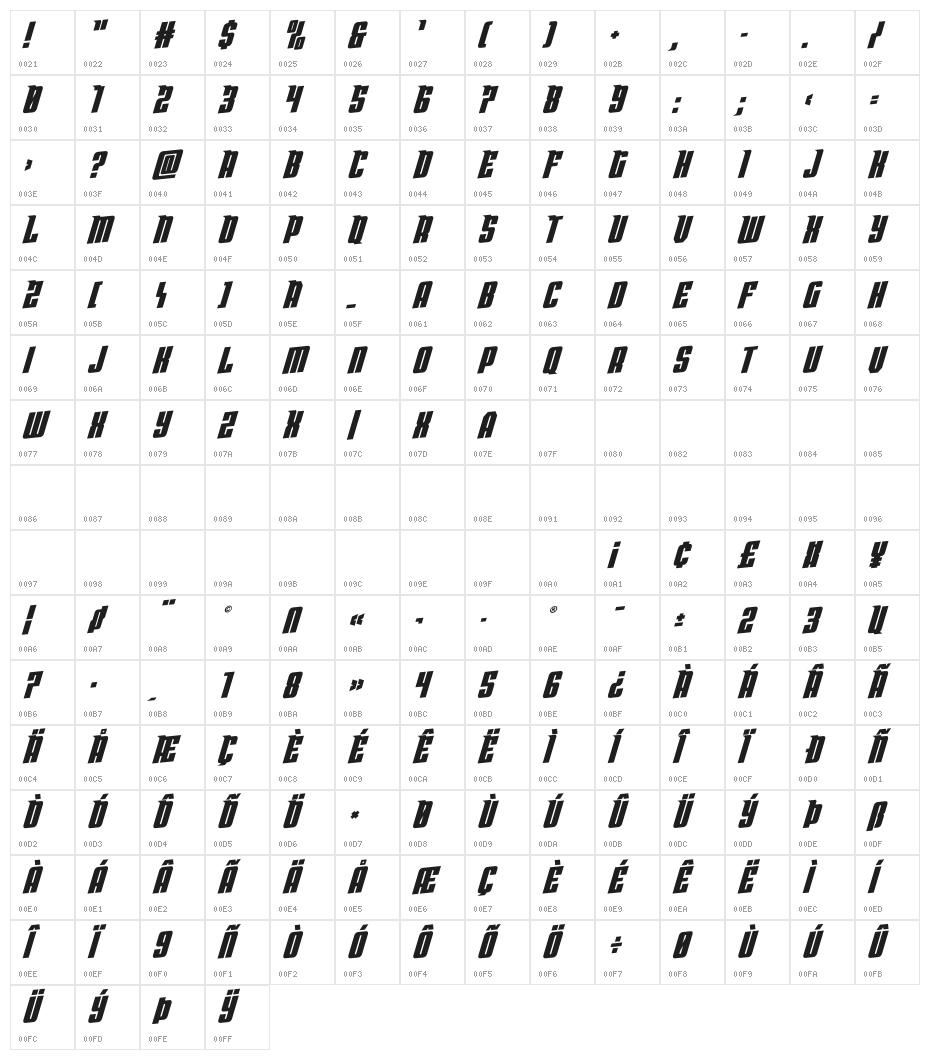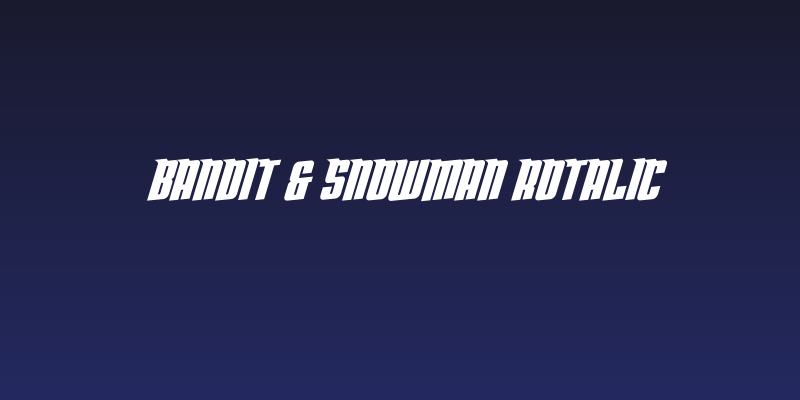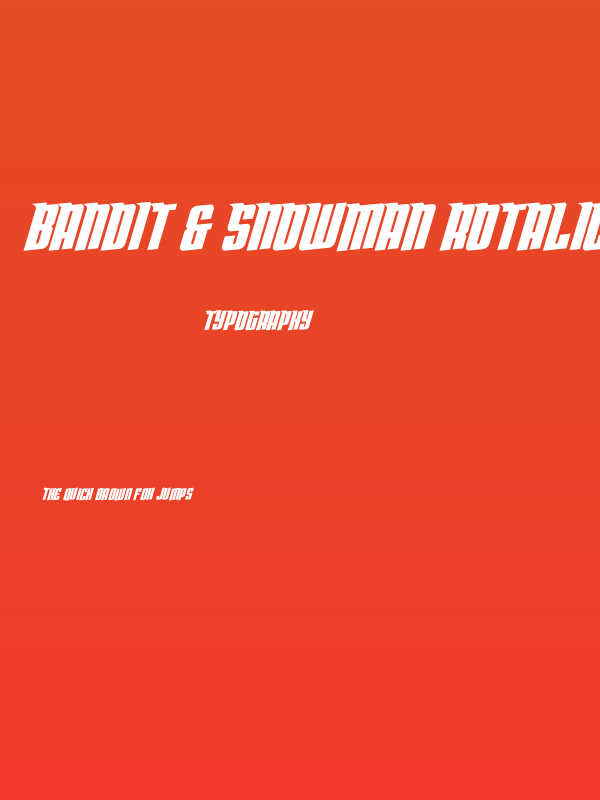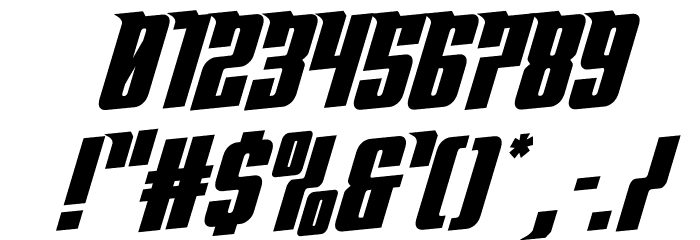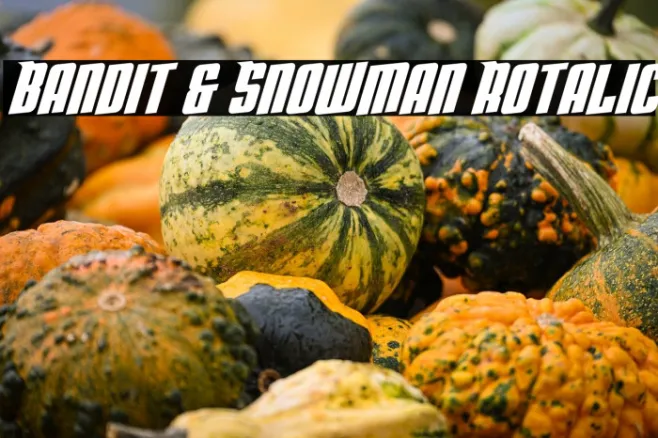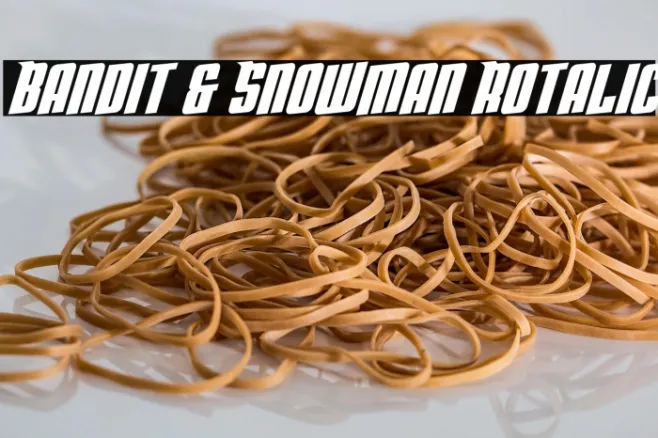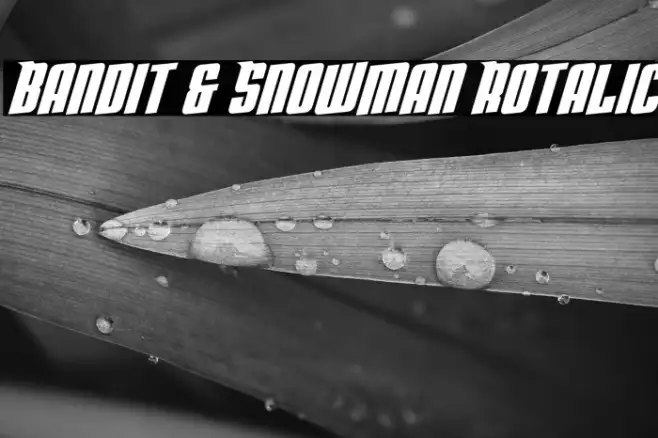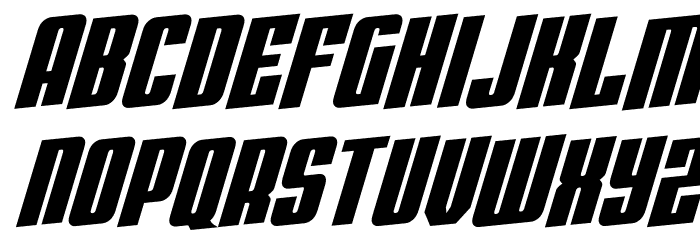
Bandit & Snowman Rotalic Font
Bandit & Snowman Rotalic Description
This font features a bold, italicized style with a strong, dynamic presence. The characters are sharply angled, giving a sense of movement and energy. The uppercase and lowercase letters maintain a consistent slant, enhancing the italic effect. The numbers and special characters follow the same design principles, ensuring uniformity across all elements. The strokes are thick, contributing to a high contrast between the characters and the background. This font is particularly eye-catching and is designed to stand out in any context.